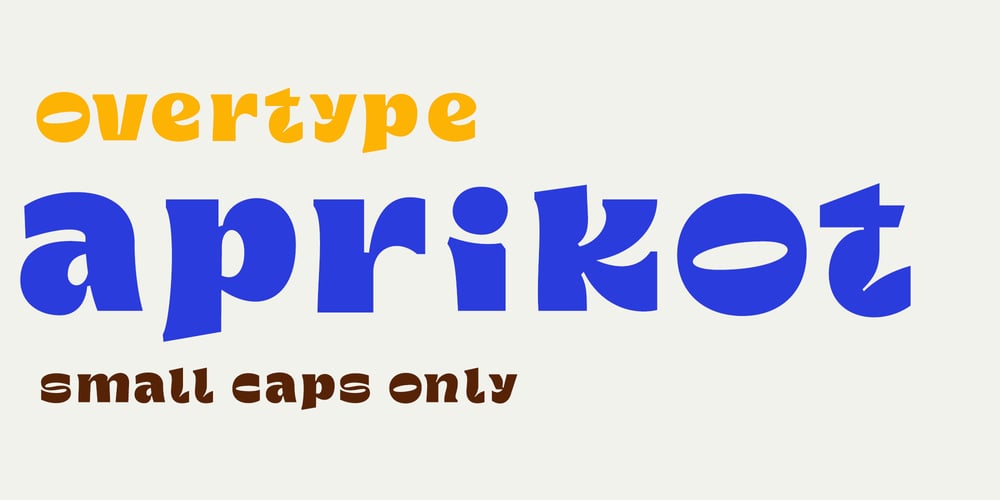
OT Aprikot Font Family was designed by Evgeniy Agasyants and published by Overtype. OT Aprikot contains 1 styles and family package options. The font is only with lowercase letters. A strange, unusual and very expressive font. It is perfect for packaging, postcards and posters.